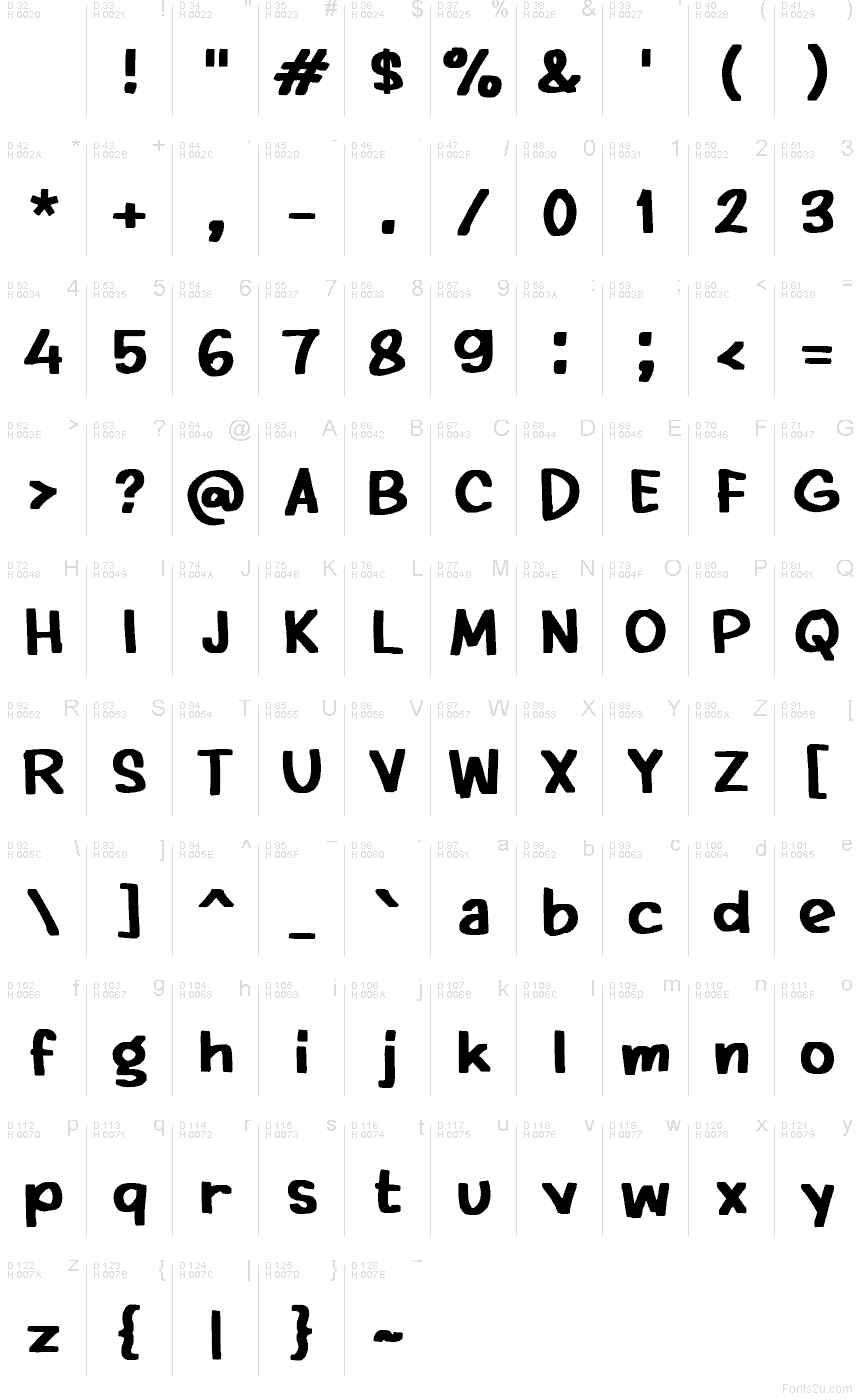
Tacobae
Tacobae font by wepfont.com is a free comic display typeface with a bouncy, hand-drawn feel that looks like it was brushed onto a napkin at your favorite taco truck. The chunky, slightly uneven strokes give each letter a warm, friendly wobble, while the tight rhythm keeps words looking full and juicy rather than messy. It has that casual, doodled charm that feels fun and inviting without tipping into chaos.
Using Tacobae, this free font shines on food packaging, street-food logos, kids’ menus, party invites, playful YouTube thumbnails, and bold social posts. The letters hold up well at larger sizes, where their inky, organic edges really show, making headlines feel loud and happy. Pair Tacobae with a clean, simple sans serif for body copy to keep your layouts readable while letting this comic display typeface handle all the personality.